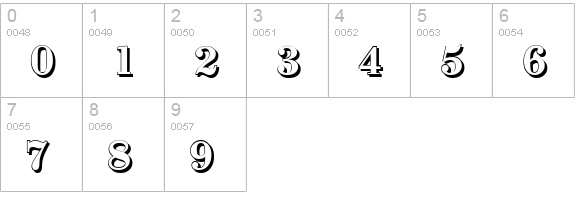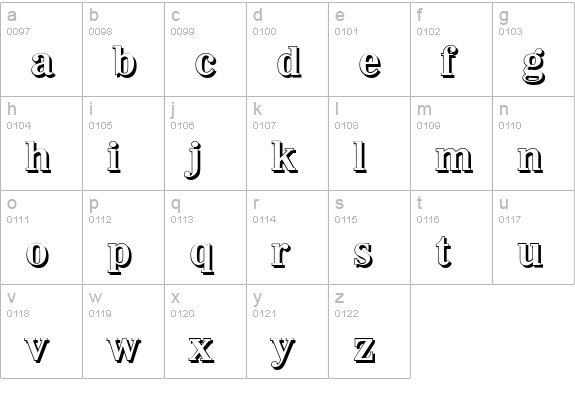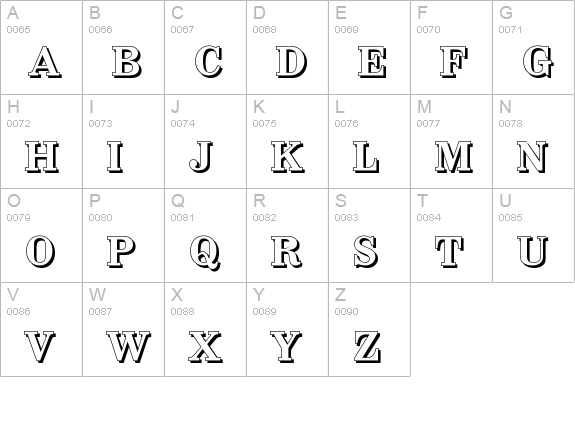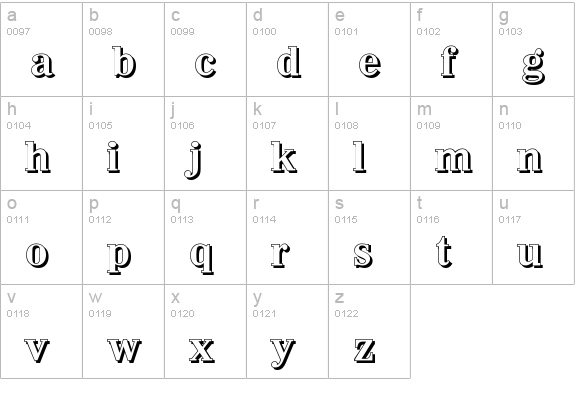
WichitaShadow-Bold is a strong, high-contrast variant in the WichitaShadow typeface family \xE2\x80\x94 well suited to headlines, attention-grabbing titles, and strong calls-to-action.
WichitaShadow-Bold is a striking and bold font that exudes power and confidence. With its strong lines and distinct shadow effect, this font commands attention and makes a bold statement in any design project. Perfect for headlines, titles, logos, and more, WichitaShadow-Bold adds a touch of sophistication and modernity to any creative endeavor. The best part? WichitaShadow-Bold is available for free download at FontsMarket.com. This means you can easily add this eye-catching font to your collection without breaking the bank. Don't miss out on the opportunity to enhance your designs with the unique style of WichitaShadow-Bold - download it today and make a statement with your typography!